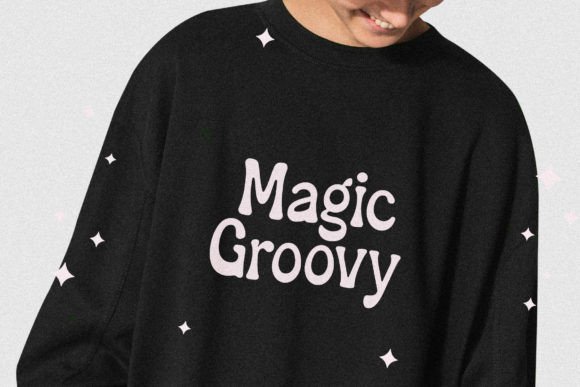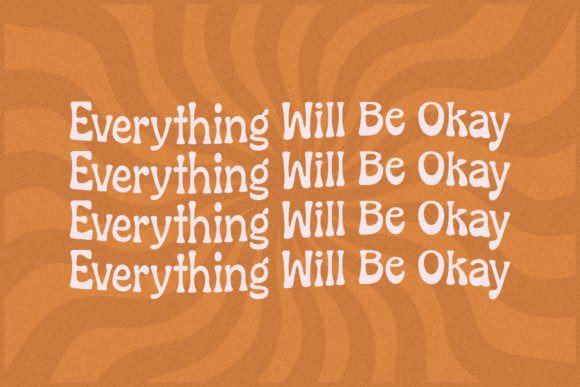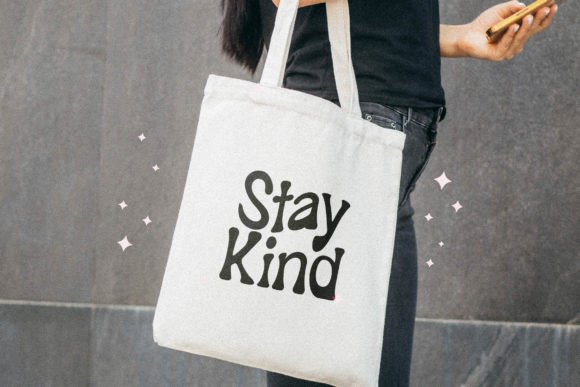
Introduction to Fruits Delight Font
Imagine you’re brainstorming ideas for your next creative project, and you need the perfect font to bring your concept to life. The excitement builds as you browse through your design resources, and suddenly, you stumble upon the perfect match – Fruits Delight Font. This groovy serif display font is a game-changer for designers, and we’re here to tell you why.
| 👤 Author | Storytype Studio |
With its cool retro vibe, Fruits Delight Font is a versatile design resource that can elevate any project. Whether you’re working on a free download or a high-quality print material, this font is sure to make a statement. Plus, with its transparent background, you can easily layer it with other design elements to create a unique visual effect.
Key Features of Fruits Delight Font
- Unique, hand-drawn design for a creative and playful look in your design project
- Includes a range of fruit-themed characters, perfect for food, health, and wellness design projects
- Supports a wide range of languages, making it a versatile and useful font for international design projects
Honest Review: Fruits Delight Font
As a designer, I’m always on the lookout for unique and high-quality design resources to elevate my creative projects. The Fruits Delight Font caught my eye, and I’m excited to share my honest review with you.
What works well: ✨ The Fruits Delight Font is a vibrant and playful design resource that’s perfect for creating eye-catching graphics and marketing materials. The font is available for free download, making it an excellent addition to any designer’s toolkit. The transparent background feature allows for seamless integration with various design elements, and the high-quality design ensures that it looks great on any device.
- Perfect for food-related projects, such as recipes, menus, and product packaging
- Great for creating fun and engaging social media graphics
- Can be used for branding and marketing materials, such as flyers and brochures
What’s not so great: ⚠️ While the Fruits Delight Font is an excellent design resource, it may not be suitable for all projects. The playful and whimsical style may not be the best fit for corporate or professional branding. Additionally, the font may not be as versatile as some other design resources, making it less suitable for complex or multi-faceted designs.
Overall, I’m impressed with the Fruits Delight Font, and I would highly recommend it to designers working on creative projects that require a touch of whimsy and fun. With its high-quality design, transparent background feature, and free download option, it’s an excellent addition to any designer’s toolkit.
Fruits Delight Font is perfect for a variety of creative projects, including:
- Food and beverage branding
- Health and wellness marketing
- Event and party invitations
- Blog and social media graphics